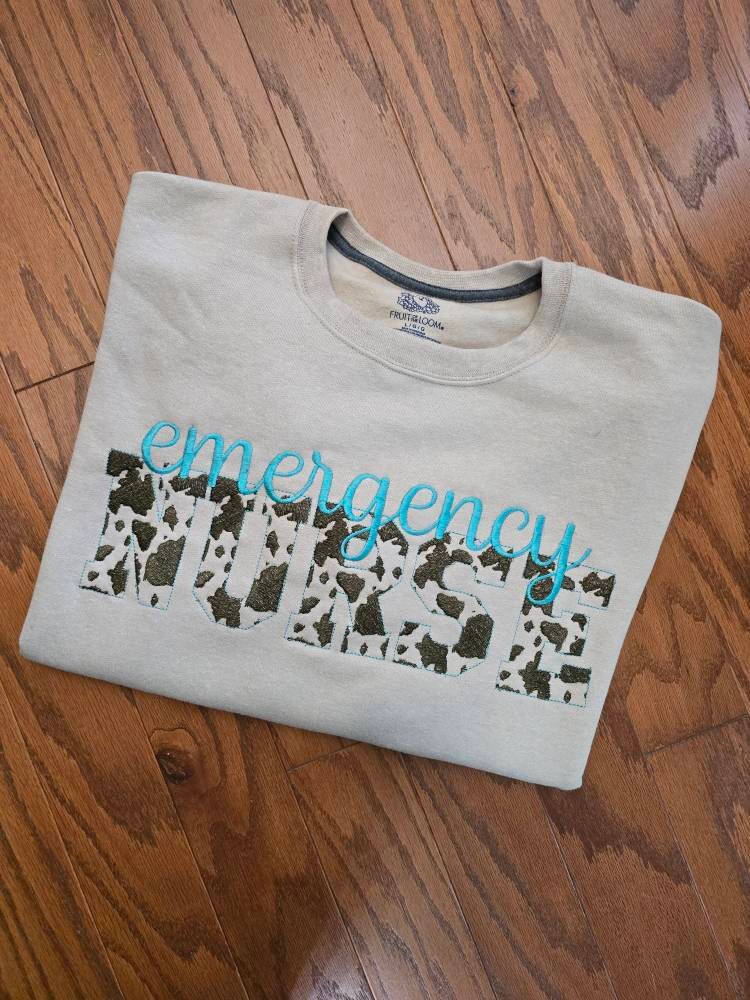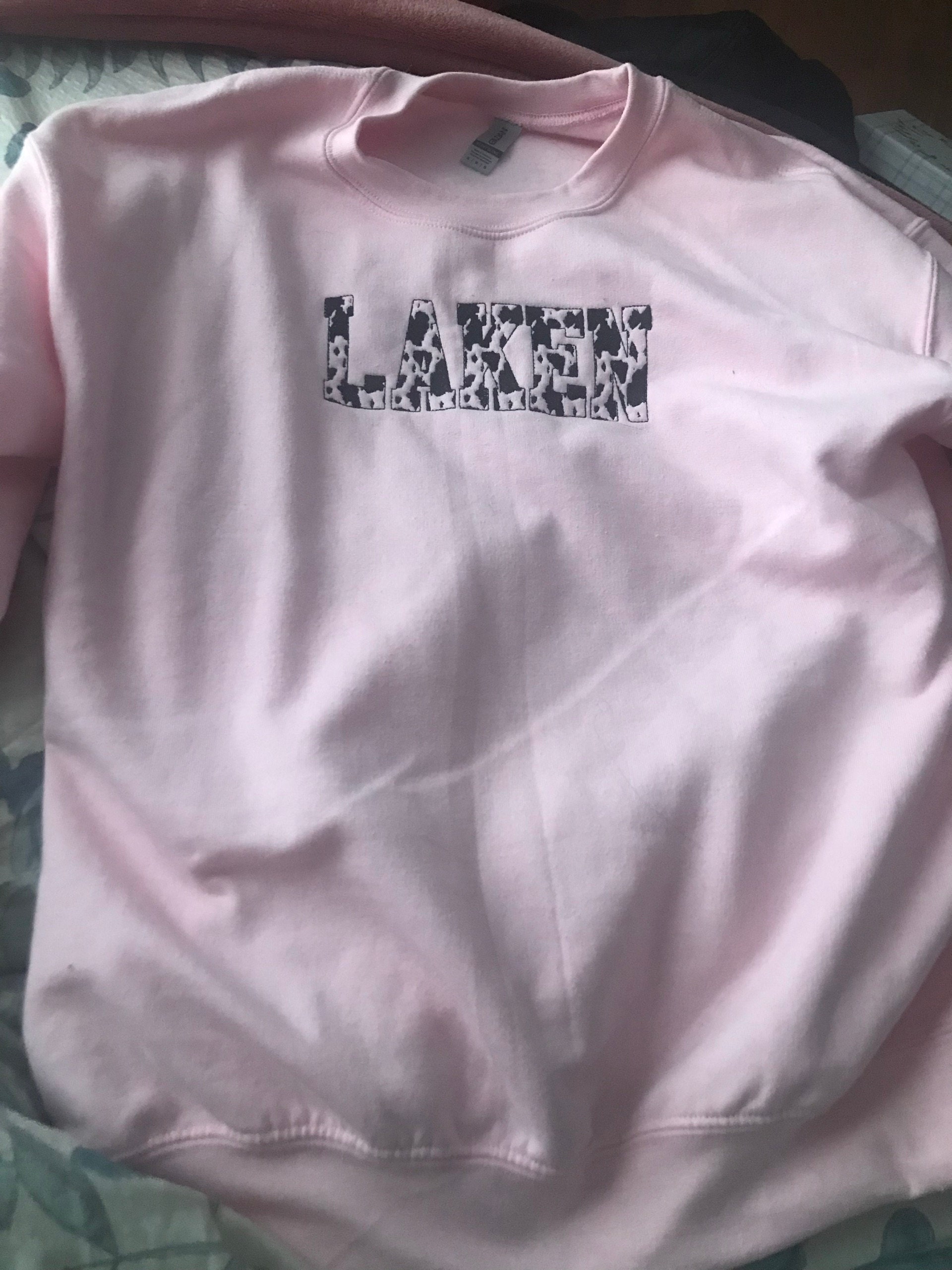
Cow spots cowboy block athletic outline Font alphabet machine embroidery designs sizes 1.3 thru 4.9 inches awesome farm cow spot monogram, BX included
It is a light stitch design, stitched cow spots and outline. The background fabric looks through. Great effect!